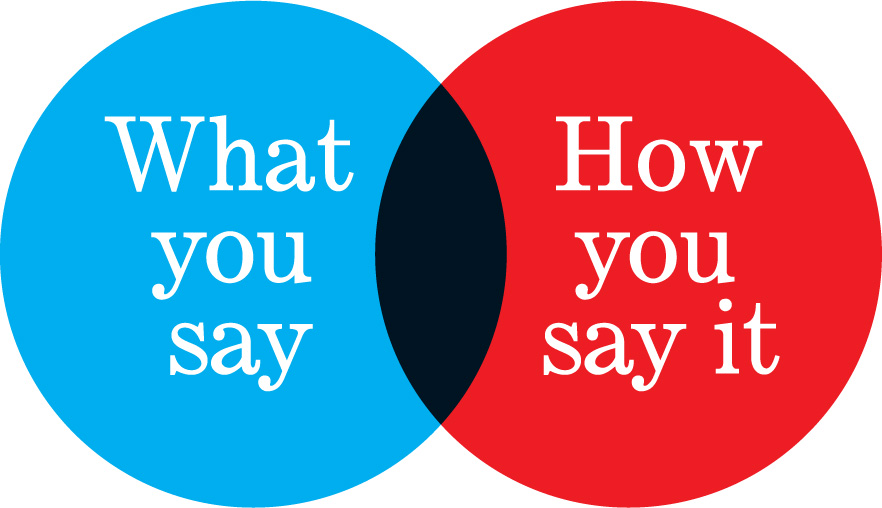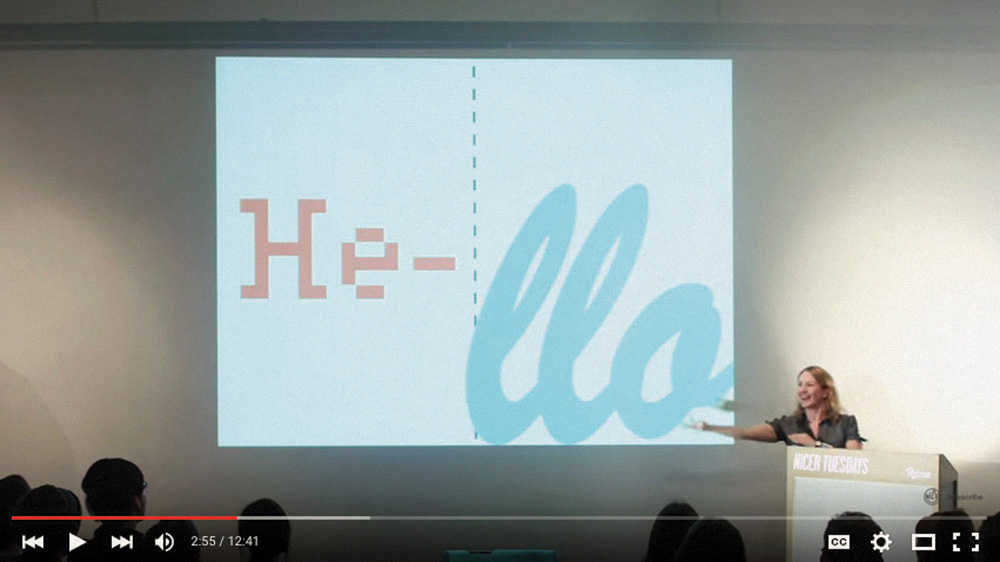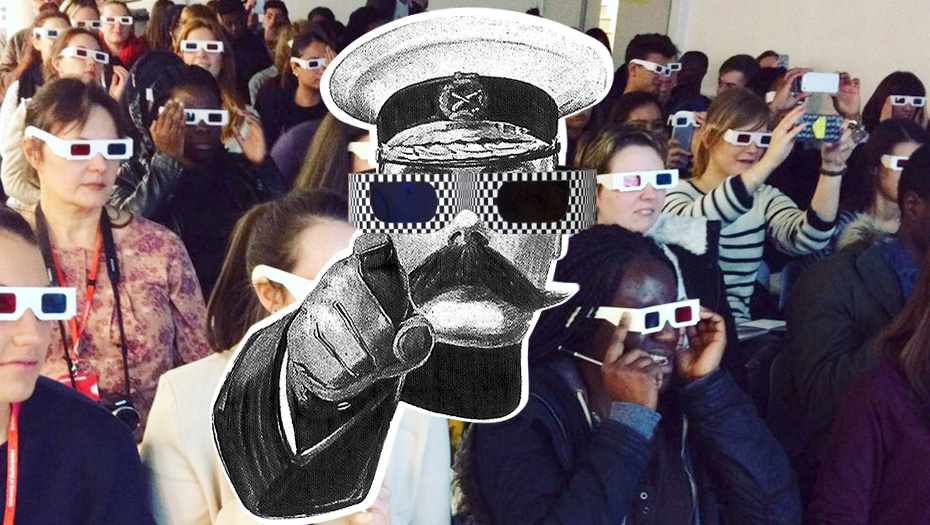
It’s time for a type revolution
It's time for a Type Revolution
It’s time for a type revolution. It’s time to change the way we think and talk about type: for non-experts to join the conversation.
Type Tasting delivers talks, ice-breaker sessions, masterclasses and workshops that make the complex topic of typography accessible and relevant beyond the design studio. We take the type consumer’s point of view and explore the experience of type—how it influences our perception and can alter our decisions.
“Clever, insightful and original, left a lasting buzz and excitement behind!” Charlotte Godfrey, BBC Bristol.
Playing Type Karaoke How you say it
It’s time for typography to be demystified. Design tools are becoming everyday applications and they are used by all of us both at work and at home. Typography—the choice of fonts and how they are arranged—is a fundamental element of design because it is what the voice looks like. Yet it is wrapped up in the language of a specialist discipline and this makes it intimidating for those outside the profession to join in the conversation.
“Sarah brings the power of fonts to everyone” Patrick Burgoyne, Editor of Creative Review.
It’s time for typography to become visible. We live in a time of increasing design awareness and we now ask questions about the messages we are bombarded with in our everyday lives. Each font/typeface has a personality that influences our interpretation of the words we read by evoking our emotions and setting the scene. We all understand this instinctively but it happens on a subconscious level. Conscious awareness of the emotional life of fonts can give us more control over the decisions we make.
Multi-sensory Tastings for Stokey Lit Fest
The Stoke Newington Literary Festival is an exciting event which celebrates this area in Hackney, London’s radical and literary history. I’m delighted that this is the second year Type Tasting will be involved. Join me for a ‘Taster’ in the studio where I will invite you to play some classic Type Tasting games.
Type Safaris and Tastings for Stokey Lit Fest
The Stoke Newington Literary Festival is an exciting event which celebrates this area in Hackney, London’s radical and literary history. I’m delighted that this is the second year Type Tasting will be involved. Join me for a Type Safari and letter hunt through N16, or come along for a Type Tasting ‘Taster’ in the studio.